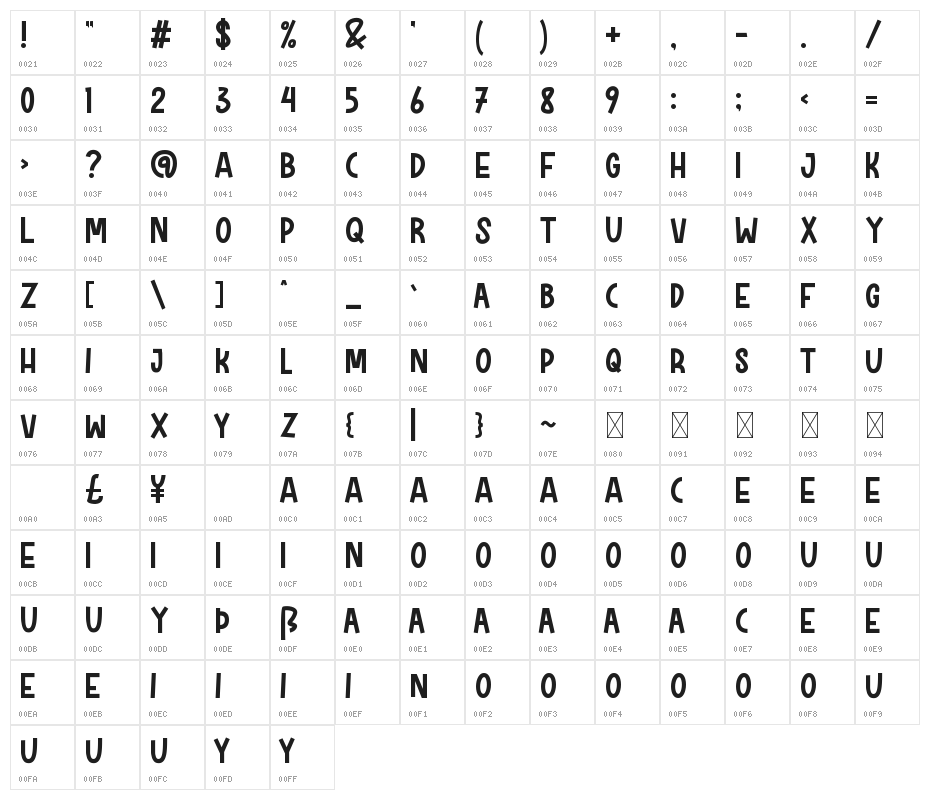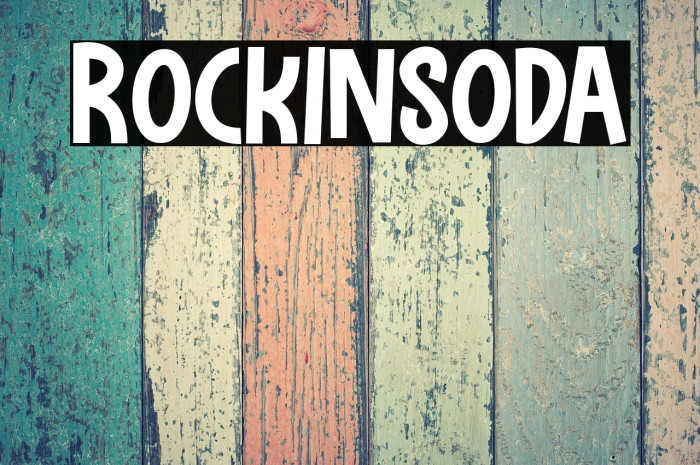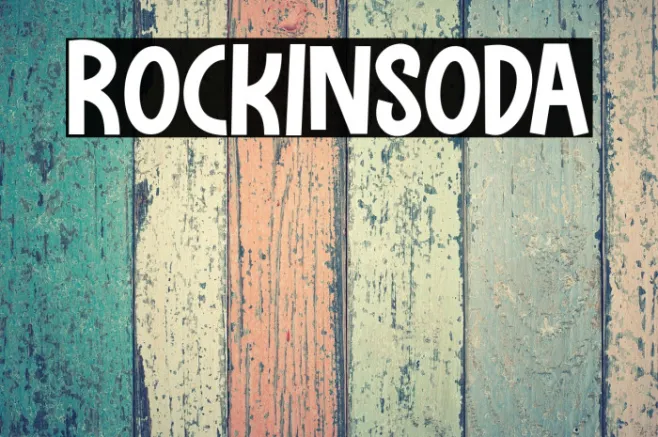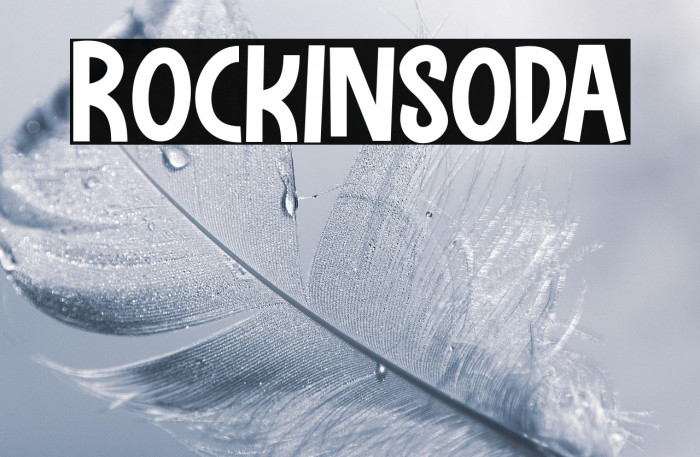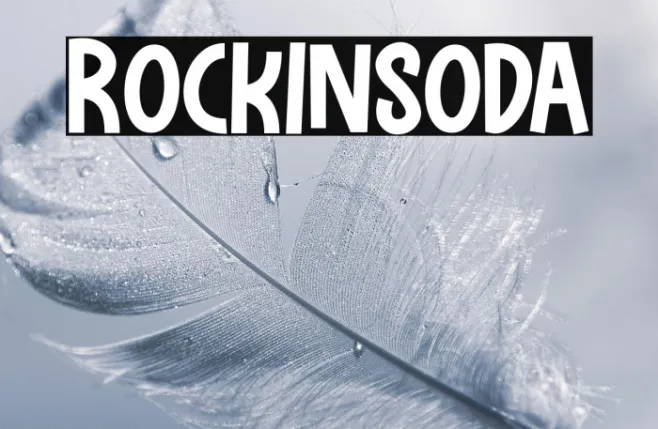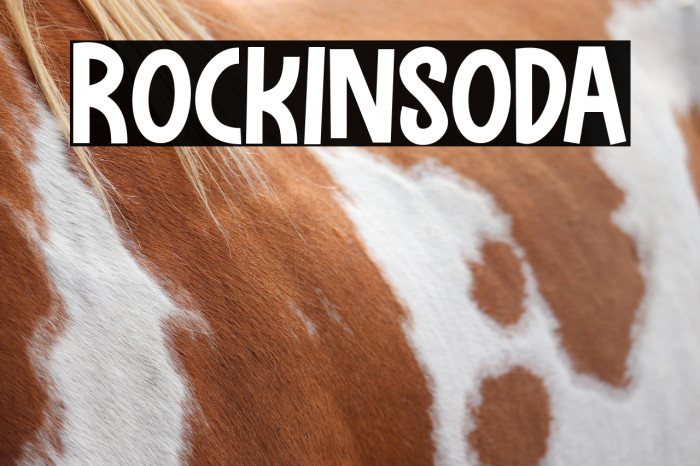
Rockinsoda Font
Rockinsoda Description
This font features a bold and playful design with a slightly retro feel. The characters are thick and rounded, giving them a friendly and approachable appearance. The uppercase and lowercase letters maintain a consistent style, with a slight slant that adds a dynamic touch. The numbers and special characters are equally bold, ensuring readability and visual impact. The overall design is clean, with smooth curves and a uniform stroke width that contributes to its modern yet nostalgic aesthetic.
| Overall Style | Playful, Retro |
| Proposed Projects | Ideal for projects that require a fun and engaging look, such as children's books, posters, branding for playful products, or event invitations. |